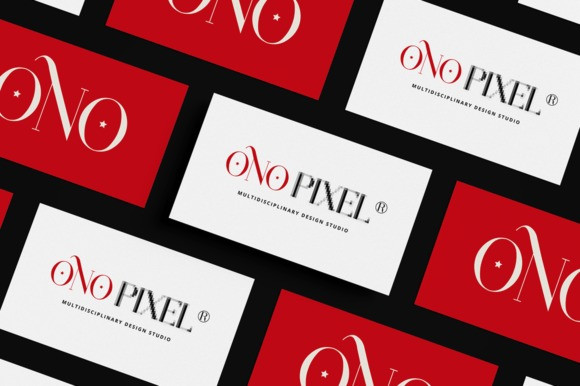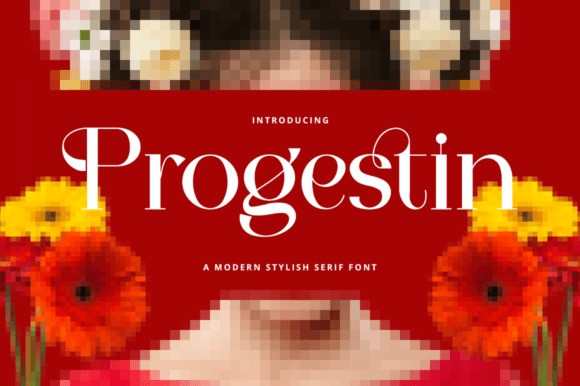
Progestin Font
Progestin Font is an elegant, thin-lettered, and distinct serif font. Suitable to a wide variety of designs due to its neat and clean style, this font has the potential to become your favorite go-to font, no matter the occasion!